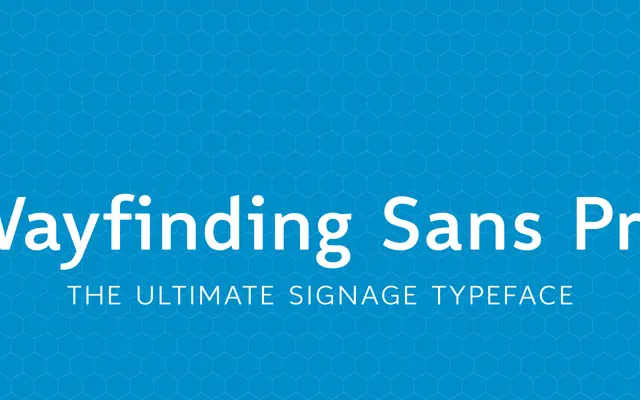
Wayfinding Sans Pro
FDI Type Foundry · Ralf Herrmann, Sebastian Nagel · 2012
A signage-specific sans by Ralf Herrmann, developed through field studies across dozens of countries and empirically validated against Frutiger, DIN 1451 and Johnston Underground in independent legibility testing.
Designed after Herrmann drove tens of thousands of miles studying road signage typefaces internationally, Wayfinding Sans Pro was built using custom real-time simulation software that modelled distance, fog, halation and contrast conditions during the actual drawing process. An independent study at the htw Berlin found the Bold Extended style significantly more legible than Frutiger, Futura, DIN 1451 and Johnston Underground in sign-reading conditions. Twenty styles with Latin Extended, Basic Cyrillic and Basic Greek support make it viable for international signage projects, and it is in active use at El Dorado International Airport, Metro Rio and the Indonesian Railway Company.
A clean, modern sans-serif optimised for signage legibility, drawing on humanist principles of letter differentiation and open apertures rather than the neutrality of a grotesque or geometry of a geometric sans.